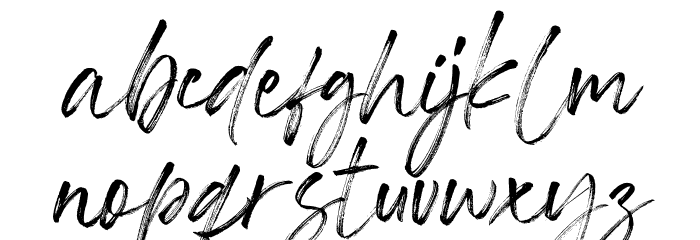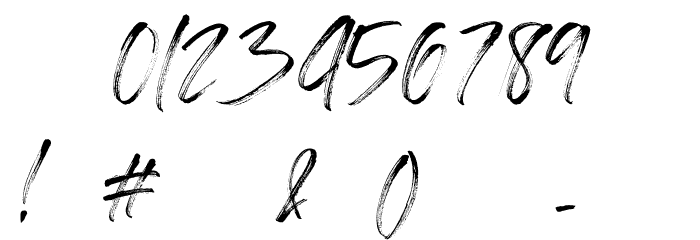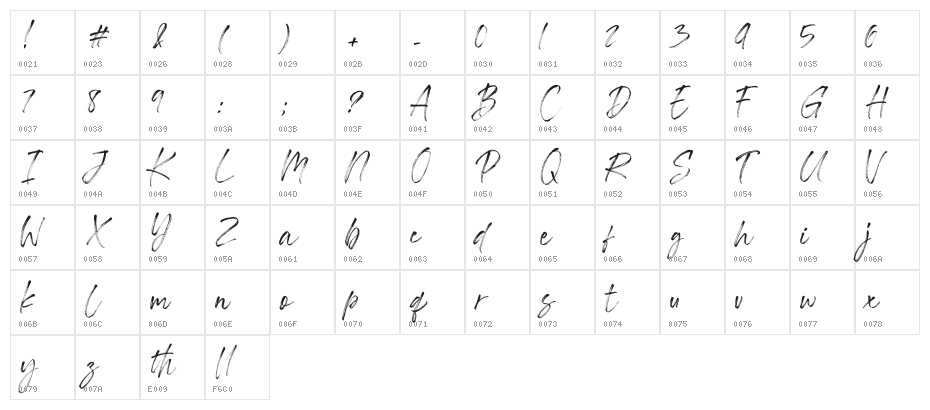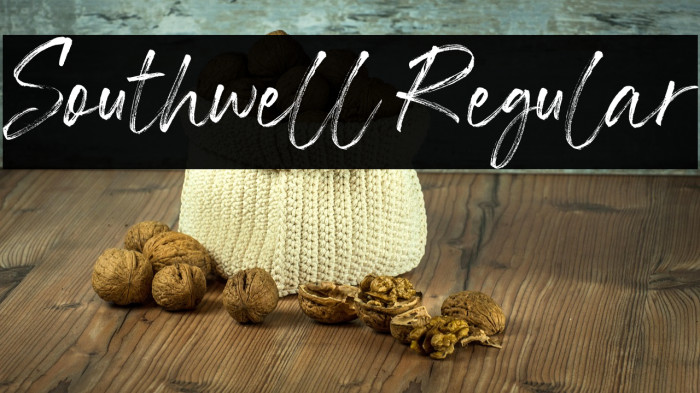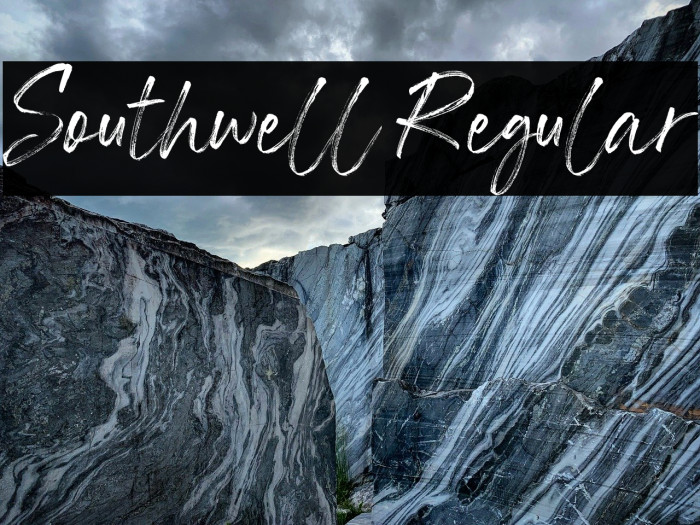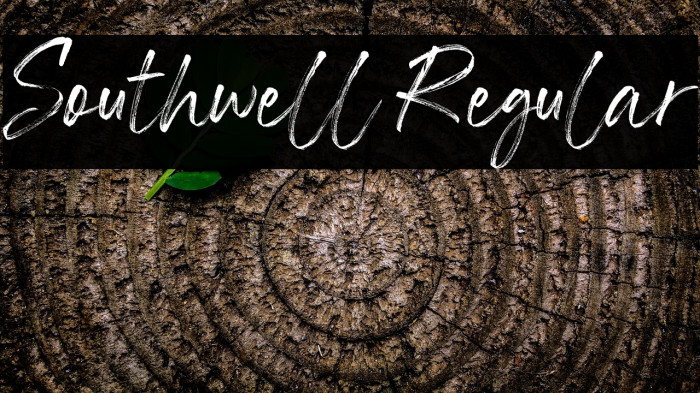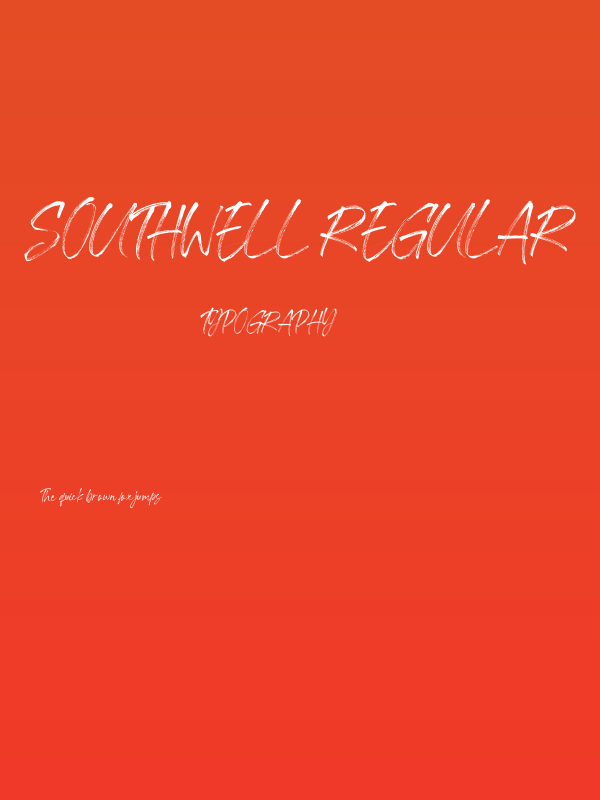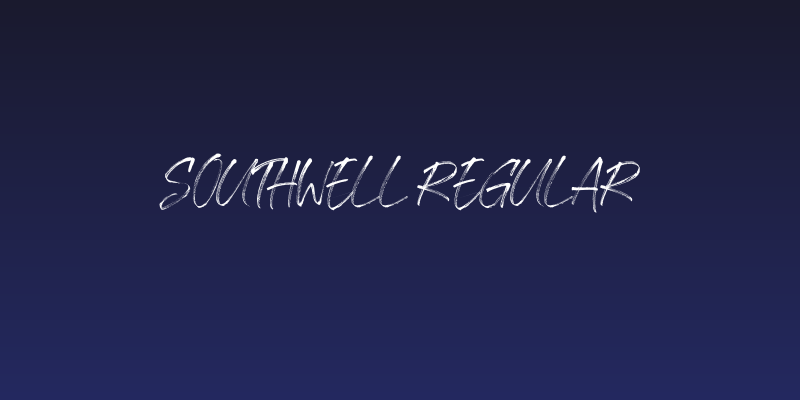
Southwell Regular Font
This font features a dynamic and expressive handwritten style, characterized by its fluid strokes and natural flow. The letters exhibit a brush-like texture, giving them a lively and artistic appearance. The uppercase and lowercase letters maintain a consistent style, with a slight slant that adds to the casual and informal feel. The numbers and special characters are crafted with the same attention to detail, ensuring a cohesive look across all elements. This font is perfect for projects that require a personal touch or a creative flair.
A dynamic, brush-style handwritten font with fluid strokes and artistic flair.
- Proposed Projects: Ideal for greeting cards, invitations, branding, and social media graphics.
- Use Case: Logos, Headlines, Invitations